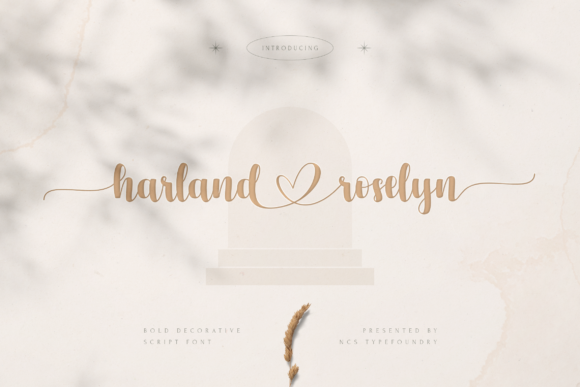
Discovering the Perfect Script for Your Next Design Project
Have you ever sat at your desk, surrounded by blank papers and a blank mind, waiting for inspiration to strike? For designers, those moments can be both exhilarating and frustrating. But what if you stumbled upon the perfect script to elevate your work? The moment I laid eyes on the Harland Roselyn Font, I knew I had found something special.
This romantic and sweet calligraphy typeface is designed to add a touch of luxury to any design project. With characters that dance along the baseline, it’s the perfect choice for those who want to create a sophisticated and elegant look. The Harland Roselyn Font is PUA encoded, making it easy to access all of its amazing glyphs and ligatures.
Whether you’re a seasoned designer or just starting out, the Harland Roselyn Font is a valuable addition to your toolkit. Its versatility and beauty make it an ideal choice for a wide range of projects, from wedding invitations to branding materials.
Harland Roselyn Font Key Features
- Font Family: Harland Roselyn Font
- Unique Characteristics: Elegant script font with a touch of vintage charm, suitable for formal and creative projects
- Font Style: Script, Casual, Formal
Harland Roselyn Font Review
When I first laid eyes on the Harland Roselyn font, I was immediately drawn to its elegant and sophisticated feel. The font’s refined lines and subtle flourishes give it a touch of classic sophistication, making it perfect for high-end brands and luxury products. ✨
One of the standout features of Harland Roselyn is its excellent legibility, making it easy to read even in smaller sizes. The font’s balance of contrast and texture adds to its visual appeal, making it a great choice for body text or headings. ✨
While Harland Roselyn is a great font, it may not be the best choice for every project. One of the main limitations is its limited character set, which may require additional font licensing for certain languages or special characters. ⚠️
Overall, I think Harland Roselyn is a great choice for high-end brands and luxury products that require a touch of classic sophistication. While it may have some limitations, its elegant feel and excellent legibility make it a great addition to any designer’s toolkit. With a little creative license, Harland Roselyn can help elevate any project to new heights.
Tips for Getting the Most Out of Harland Roselyn Font
Use Harland Roselyn Font to add a touch of elegance and sophistication to your designs.
Pair it with other elegant fonts to create a cohesive and professional look.
Experiment with different font sizes and styles to create visual interest and emphasis.
Use Harland Roselyn Font for:
Business cards and letterheads
Magazine and newspaper headlines
Book covers and book titles
Alternatives to Harland Roselyn Font
Lato Font is a sans-serif font designed by Łukasz Dziedzic. It’s a modern and clean font, ideal for digital products, apps, and websites. Lato is a great alternative to Harland Roselyn Font for its simplicity and versatility. While Harland Roselyn Font has a more elegant and sophisticated feel, Lato Font is more suitable for modern and minimalist designs.
Montserrat Font is a sans-serif font designed by Julieta Ulanovsky. It’s a geometric font with a strong urban feel, perfect for headlines and titles. Montserrat Font is a great alternative to Harland Roselyn Font for its bold and modern look. However, Harland Roselyn Font is more suitable for body text and long-form content due to its readability.
Can I customize Harland Roselyn to fit my specific design needs?
Yes, Harland Roselyn is a highly customizable font. It includes a range of OpenType features, including ligatures, alternates, and swashes, which can be accessed using a variety of design applications. You can also use font editing software to customize the font’s metrics and character set.